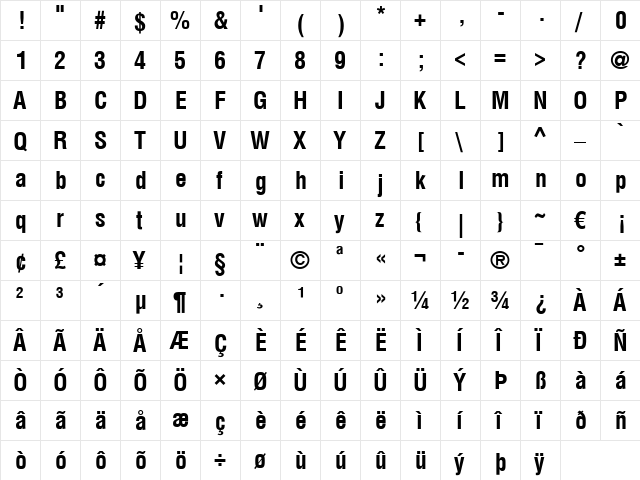
Helvetica LT Condensed Bold Font Preview
Design Context for Helvetica LT Condensed Typeface
Helvetica LT Condensed takes a measured approach to typography — its balanced proportions and neutral character make it a reliable workhorse for both digital and print work. The heavy weight commands attention and anchors typographic hierarchies. Its narrow stance lets it pack a punch even in space-constrained designs.